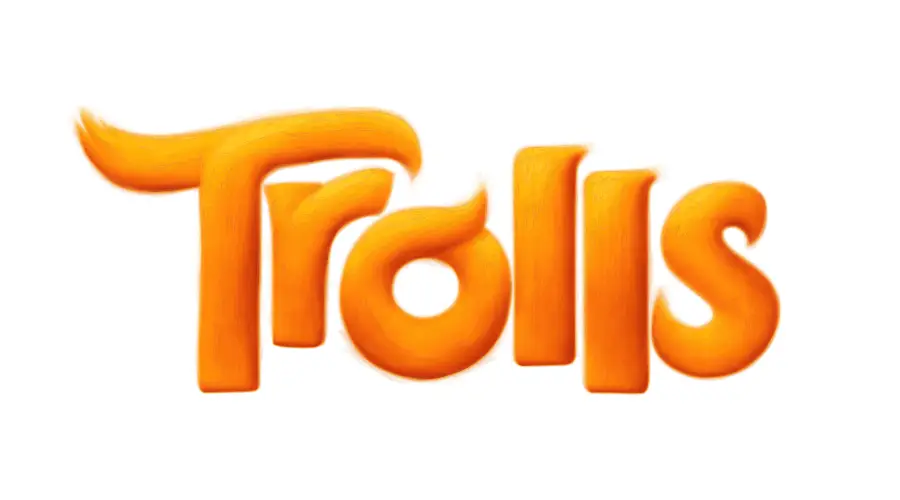
The Trolls Font is a playful and whimsical typeface closely associated with the 2016 animated musical film Trolls, produced by DreamWorks Animation. This font is prominently featured in the movie’s logo, posters, and promotional materials, capturing the fun and vibrant essence of the film. The font’s design is characterized by its rounded, bouncy letters, which align perfectly with the cheerful and adventurous theme of the movie.
Trolls Font: A Detailed Overview
The Trolls Font is prominently featured in the logo of the 2016 animated musical film, Trolls, produced by DreamWorks Animation. The whimsical, colorful, and playful nature of the font reflects the cheerful and vibrant world of the Trolls characters. The title design adds to the film’s branding and makes it easily recognizable.
Official Font:
The font used in the Trolls logo closely resembles Trotes by FG Studios. While there is no confirmation of an official Trolls font available for public use, Trotes serves as the best alternative for similar design aesthetics.
Similar Fonts:
Trotes by FG Studios – This font mirrors the style used in the Trolls logo. Its bold, rounded, and playful design aligns perfectly with the animated and whimsical theme of the movie.